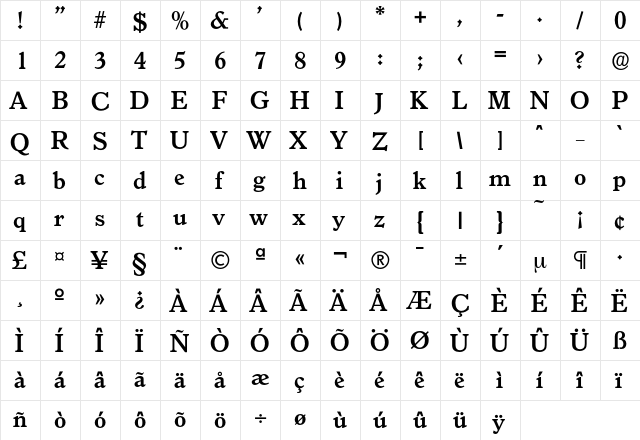
Granada-DemiBold Regular
Design Context for Granada-DemiBold Typeface
Granada-DemiBold takes a measured approach to typography — its balanced proportions and neutral character make it a reliable workhorse for both digital and print work. The heavy weight commands attention and anchors typographic hierarchies.